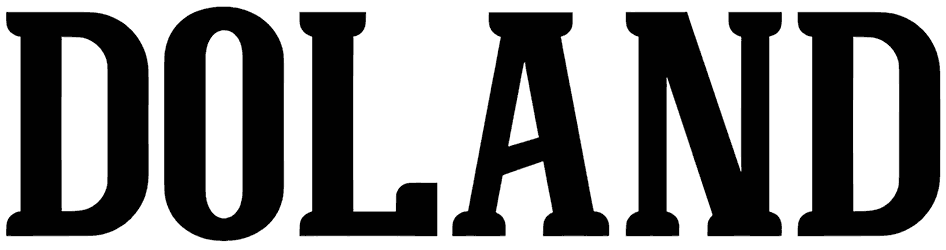
Doland Font
Designed byArdian Dwipra
Aside from the two different styles that this typeface offers you, the design of Doland gives you a strong and reliable sense that feels good. This American classic font creates that powerful effect with bold serif letters which are designed and styled uniquely.